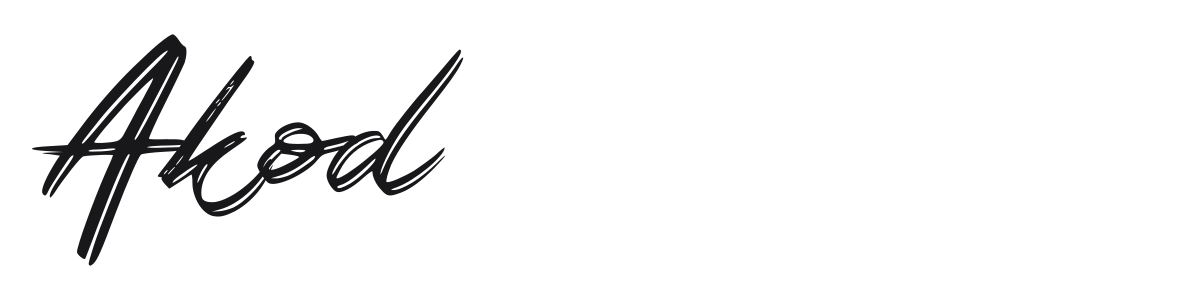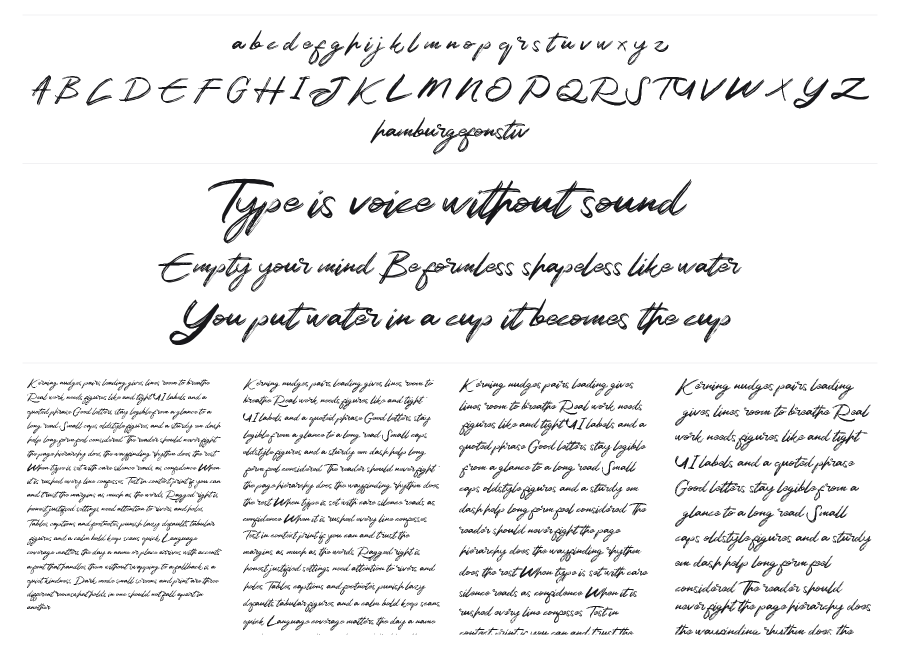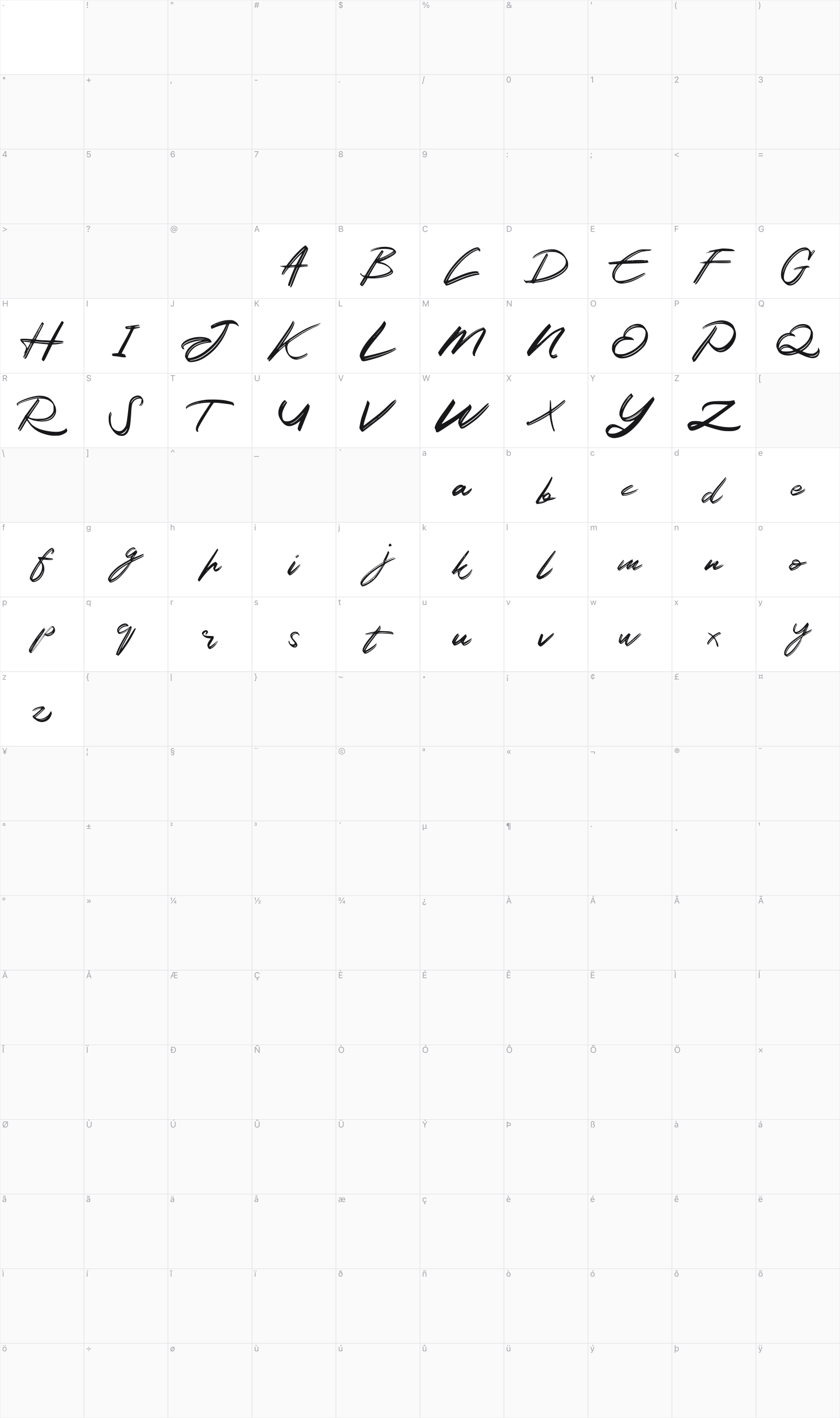
Akod
Akod is a fast, expressive brush script that looks like it was signed in a single stroke. Rough ink textures and interweaving strokes give it genuine handmade energy rather than a polished digital simulation. It works well at large sizes where the texture and rhythm read clearly.